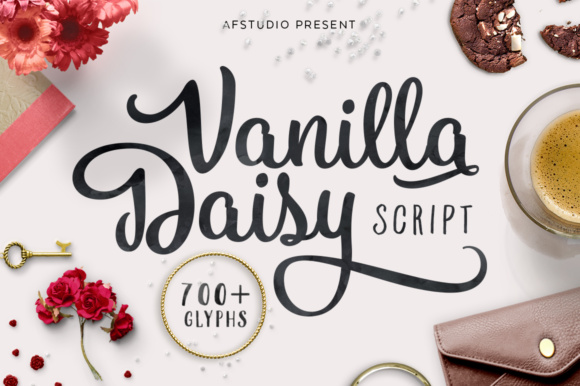
Introducing Vanilla Daisy Font, a breathtaking script font designed by the talented Adam Fathony. This font exudes elegance and sophistication, making it an essential addition to your design arsenal. With its extensive collection of alternate characters, Vanilla Daisy offers limitless possibilities to unleash your creativity and set your work apart from the rest.
Are you tired of the same old generic fonts that fail to make an impact? Look no further than Vanilla Daisy, as it effortlessly bridges the gap between masculine and feminine designs. Its enchanting curves and graceful strokes create a harmonious balance that captivates the eyes and leaves a lasting impression.
Unleash your imagination with the abundance of alternate characters that Vanilla Daisy brings to the table. Whether you're looking to add a touch of elegance to a wedding invitation or create a stunning logo for your brand, this font has you covered. With a vast library of options at your fingertips, the possibilities are truly endless.
Let your creativity soar as Vanilla Daisy adds a unique presence to your work. Its timeless appeal and delicate charm are perfect for a wide range of projects, from branding and packaging to social media graphics and beyond. With this font, you'll effortlessly elevate your designs and grab the attention of your audience.
But that's not all! Vanilla Daisy is not just visually stunning; it's also incredibly easy to use. With its user-friendly interface, you'll have no trouble accessing all the alternate characters and glyphs. Say goodbye to tedious manual adjustments and hello to effortless design perfection.
Don't settle for ordinary when you can embrace the extraordinary. Vanilla Daisy Font is the missing piece you've been searching for to take your designs to the next level. Its beauty knows no bounds, and its impact will leave you and your audience in awe.